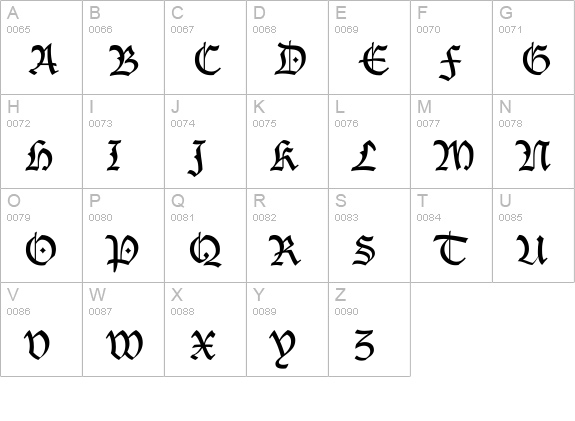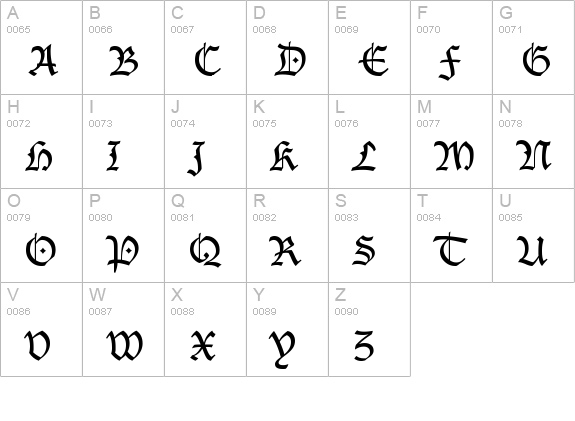
Lucida Blacklet Font Details
Lucida Blacklet is a modern and stylish font that exudes elegance and sophistication. With its bold and sleek design, this font is perfect for making a statement in any project. Whether you're designing a logo, creating a poster, or working on a website, Lucida Blacklet will add a touch of class to your work. The best part is that Lucida Blacklet is available for free download at FontsMarket.com. You can easily access this stunning font and enhance your design projects without breaking the bank. Don't miss out on the opportunity to elevate your designs with the timeless appeal of Lucida Blacklet. Download it today and start creating visually striking and professional-looking projects.